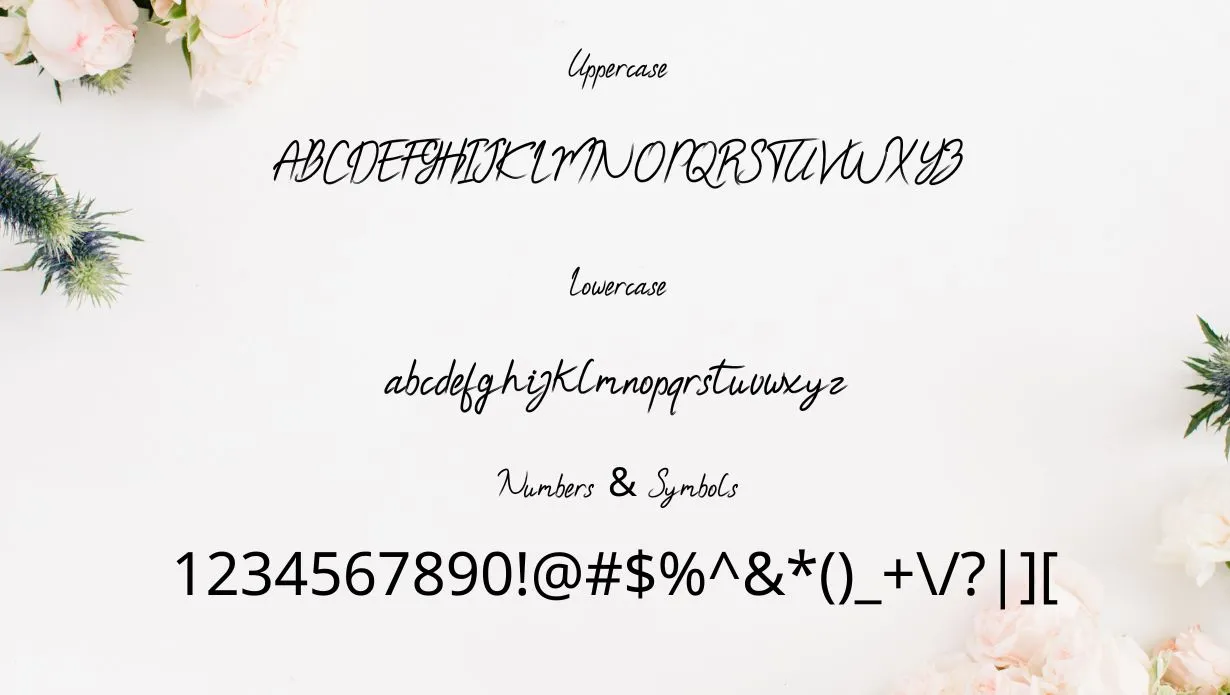
Now we talk about an amazing script typeface Secretto Edo Brush Font. This stylish font was designed by Haksen. It has two different styles Regular and Italic. It supports file formats True Type Font and Open Type Font so you can download it on different devices for use such as Windows, PC, Linux, and MAC.
Secretto Edo Brush Font Family
You can use it for making wedding cards, product packing, branding, social media posts, and other advertisement purposes. You can make attractive graphic designs also in Adobe Photoshop by using this font.